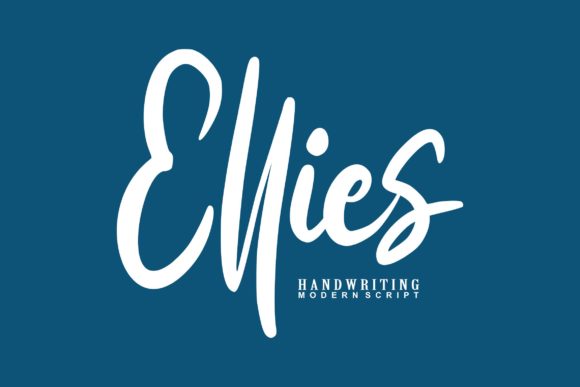
Step into the enchanting world of Ellies, the captivating script font that weaves an undeniable charm into every creation. Its intricate calligraphy-inspired curves and elegant lines evoke a sense of timeless sophistication, inviting you to add a touch of captivating grace to your designs.
Whether you're crafting heartfelt invitations, designing alluring brand logos, or simply expressing your creativity, Ellies will effortlessly elevate your words into masterpieces. Its versatility knows no bounds, adapting seamlessly to a myriad of styles and concepts. From enchanting personal touches to sweeping artistic flourishes, Ellies possesses the power to transform your vision into a captivating reality.
Indulge in the ethereal beauty of Ellies, where each letter dances across the page with a touch of magic. Its graceful strokes and harmonious flow will captivate your audience, evoking emotions and leaving a lasting impression. Allow Ellies to be your creative muse, guiding you to new heights of design excellence.